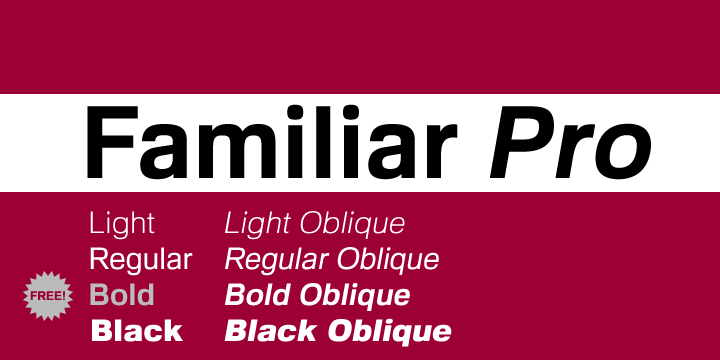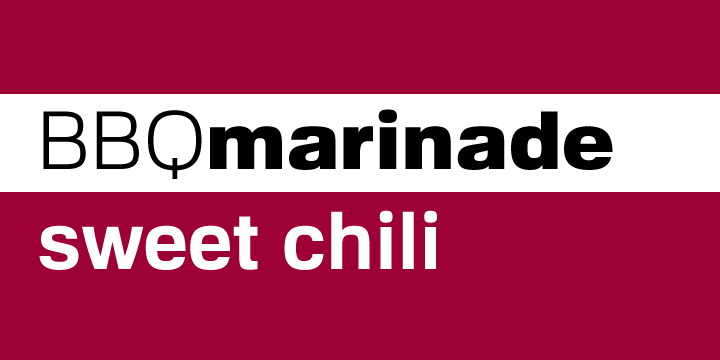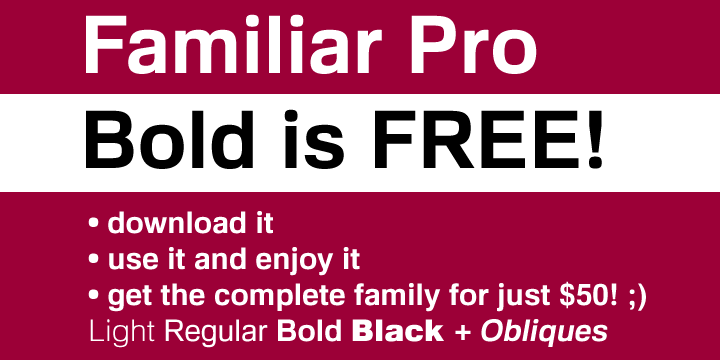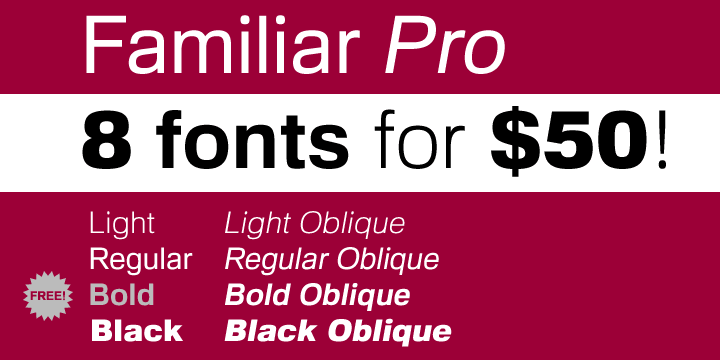
Familiar Pro is a sans serif font family. This typeface has eight styles and was published by CheapProFonts.
This family was inspired by a Type Battle over at Typophile: How would you design a font metrically compatible with Helvetica, but better than Arial? Working with preset letter widths was an interesting constraint, both a relief and a limitation at the same time.
I have done all the 4 basic weights, and the skewed obliques (done to a slightly less steep 10 degrees angle as opposed to the originals 12) has been optically adjusted. The letters have been designed quite close to the german/swiss grotesk tradition, but by using super-elliptical rounds, rounded dots and slightly curved outer diagonals the end result is a friendly looking font family that still looks… familiar.